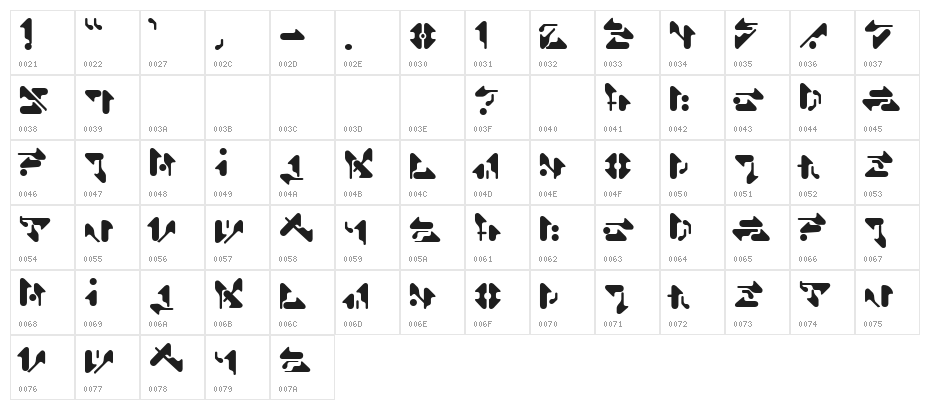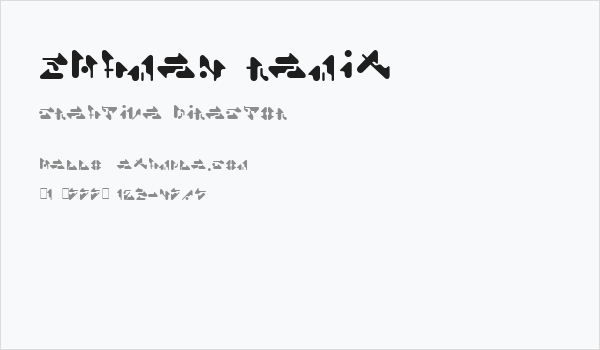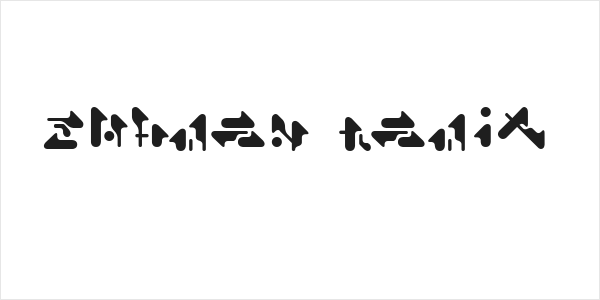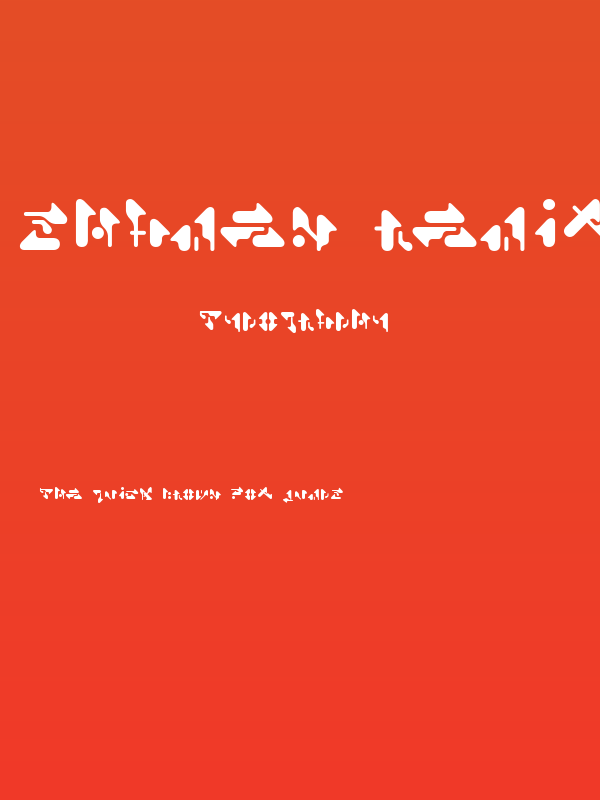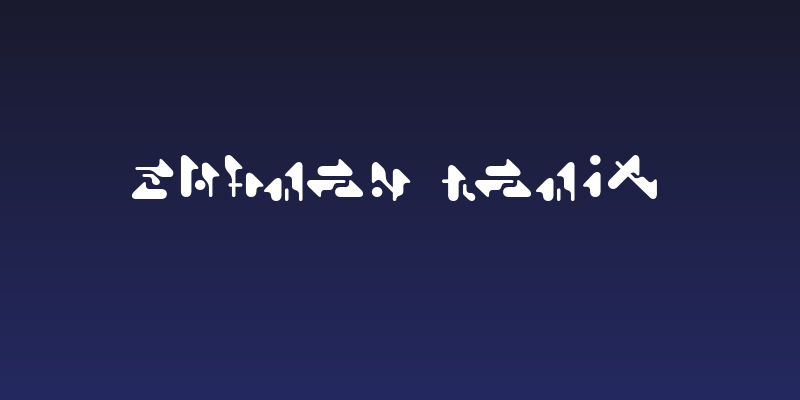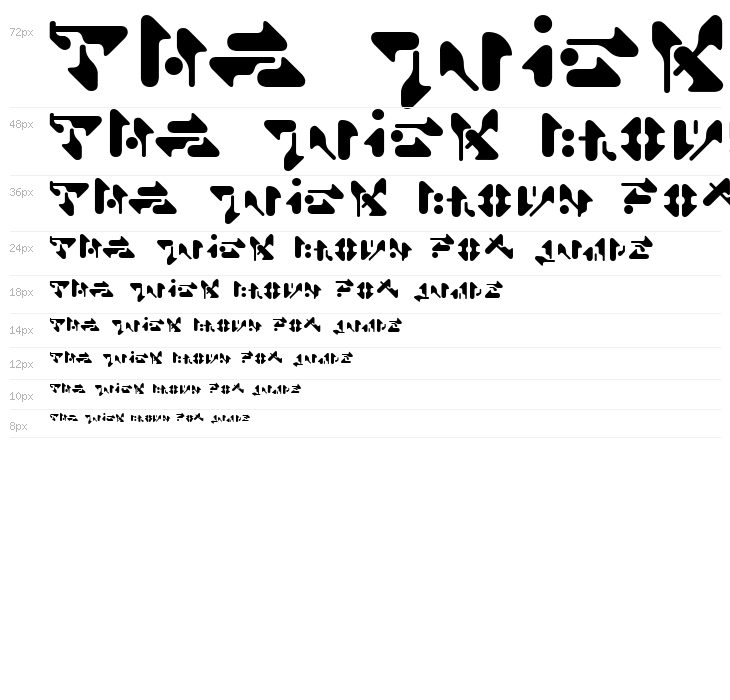
Shamen Remix Font
Shamen Remix Description
This font features a highly abstract and geometric design, with characters composed of bold, angular shapes and disconnected elements. The style is reminiscent of futuristic or alien scripts, with each letter and number appearing as a unique symbol. The characters are heavily stylized, making them more suitable for decorative purposes rather than readability. The font's distinct appearance makes it ideal for projects that require a mysterious or avant-garde aesthetic.
| Overall Style | Futuristic, Abstract |
| Use Case | Logos, Posters, Titles |
| Proposed Projects | Ideal for sci-fi themed designs, video game graphics, movie posters, or any project needing a mysterious, futuristic look. |